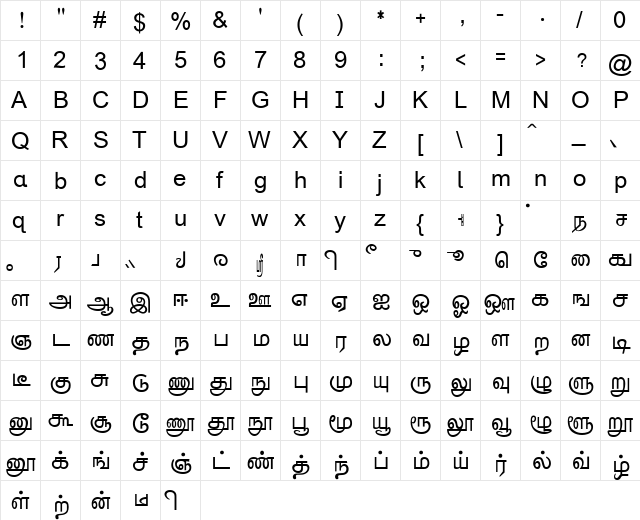
Tamil_Avarangal31TSC Regular Font Preview
Tamil_Avarangal31TSC Regular
Design Context for Tamil_Avarangal31TSC Typeface
Tamil_Avarangal31TSC offers clean, dependable letterforms without strong stylistic allegiance, making it a practical choice for designers who need flexibility.